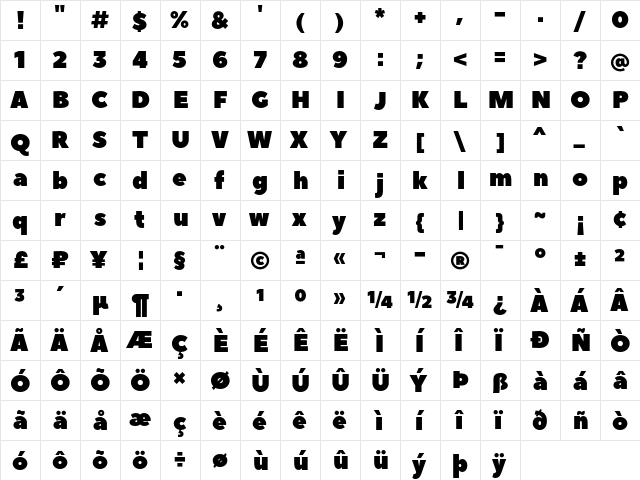
Peace Sans Regular
| Foundry | Sergey Ryadovoy & Jovanny Lemonad |
| Designer | Sergey Ryadovoy & Jovanny Lemonad |
Design Context for Peace Sans Typeface
Peace Sans offers clean, dependable letterforms without strong stylistic allegiance, making it a practical choice for designers who need flexibility.